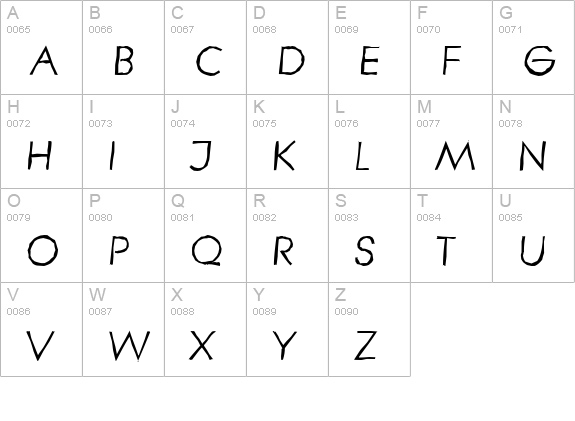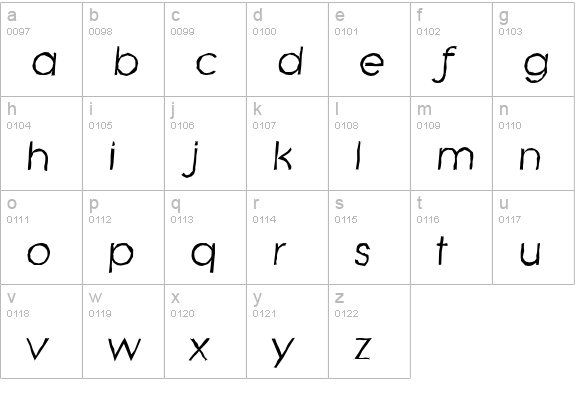
LiteraAntique-Italic Font Details
LiteraAntique-Italic is a distinctive, italic variant in the LiteraAntique typeface family \xE2\x80\x94 well suited to design and typography projects.
The LiteraAntique-Italic font exudes elegance and sophistication with its graceful curves and distinctive slanted style. Perfect for adding a touch of sophistication to any design project, this italic typeface is a timeless choice for conveying a sense of refinement and class. What sets LiteraAntique-Italic apart is not only its timeless design but also the versatility it offers. Whether used for formal invitations, editorial layouts, or branding materials, this font effortlessly elevates the overall aesthetic with its unique flair. Best of all, LiteraAntique-Italic is available for free download at FontsMarket.com. This means that you can easily access this exquisite font and incorporate it into your projects without any additional cost. Don't miss out on the opportunity to enhance your designs with the charm and sophistication of LiteraAntique-Italic font today!